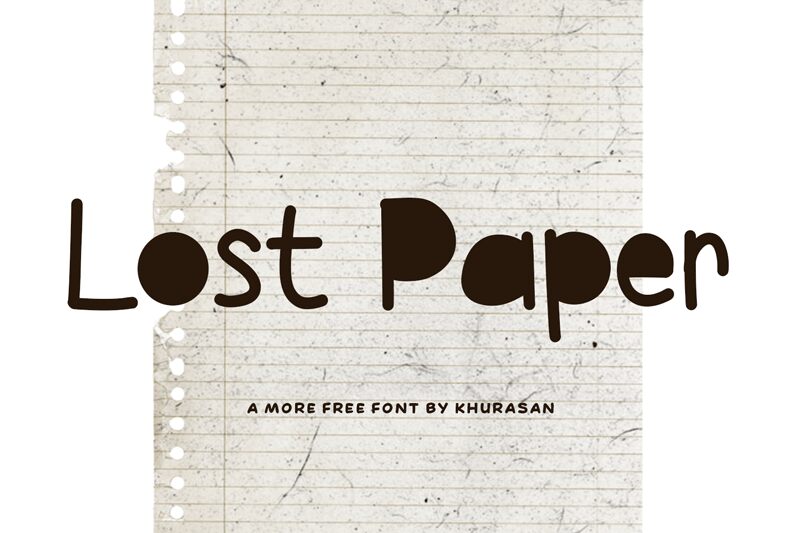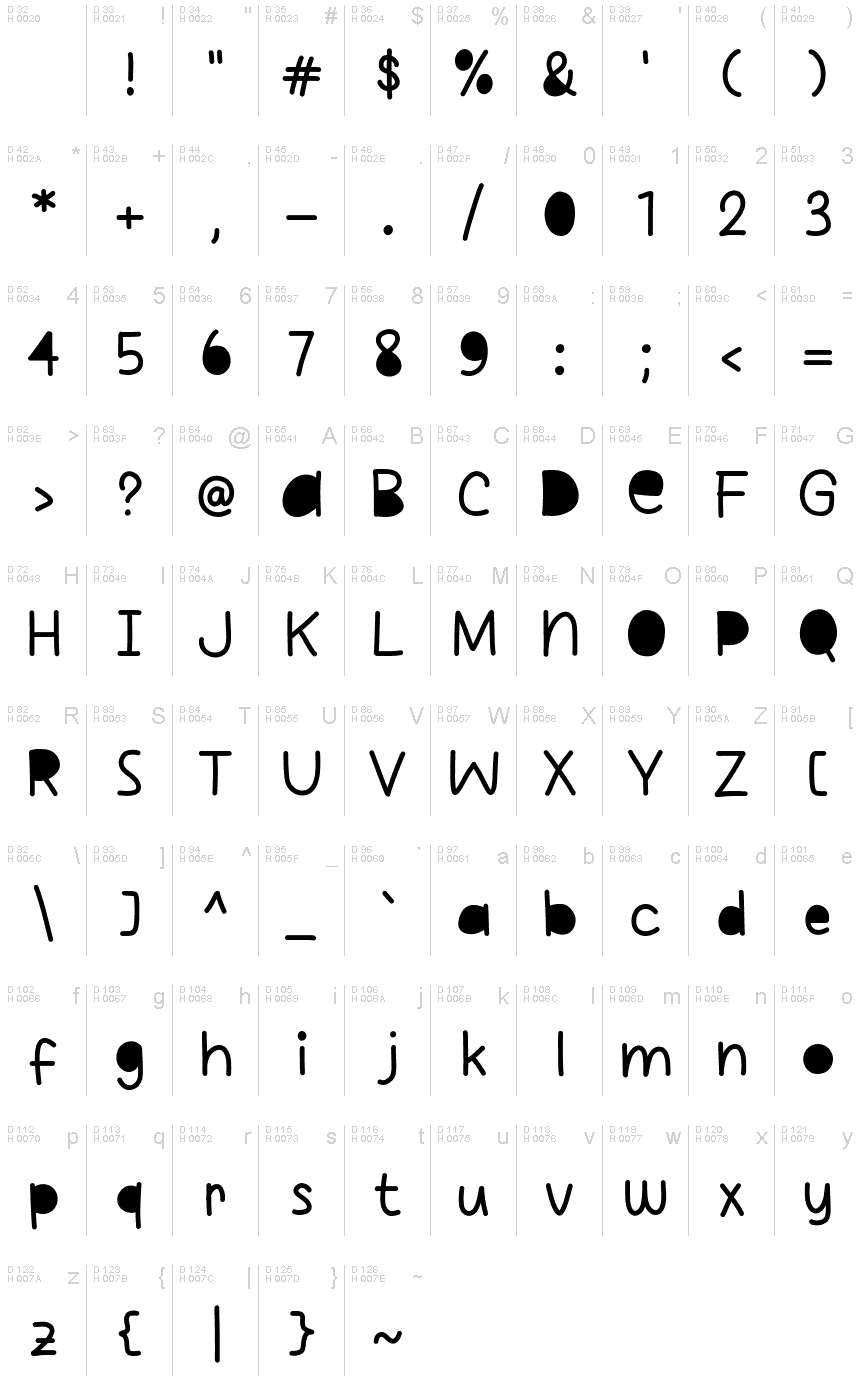
Lost Paper
Lost Paper, designed by Khurasan, is a charming handwritten font that brings a modern and cute flair to any creative project. Its semi-light weight adds an airy and delicate touch, making it perfect for posters, logos, magazines, book covers, banners, and more. The unique characteristics of Lost Paper make it versatile and suitable for a wide range of design applications.
Whether you're working on a whimsical branding project or creating eye-catching social media graphics, this font is sure to add an extra dose of charm. Its playful yet refined style makes it stand out from the crowd and gives your designs an effortlessly elegant look.